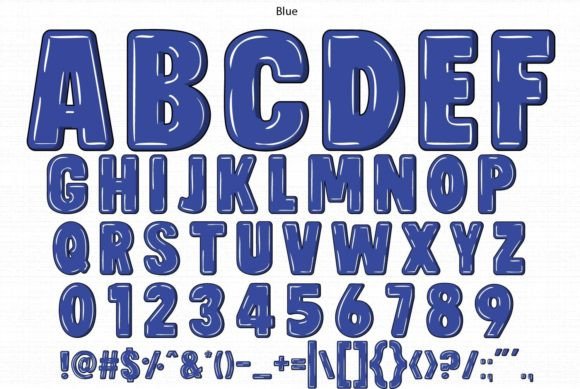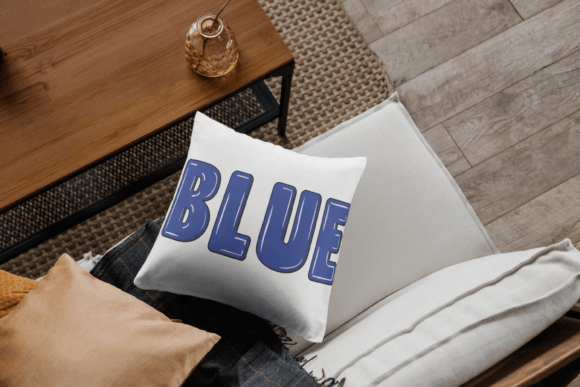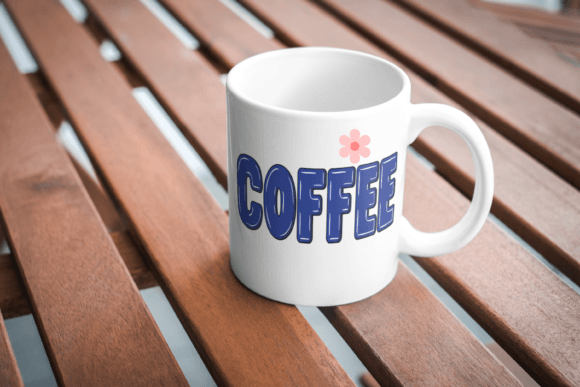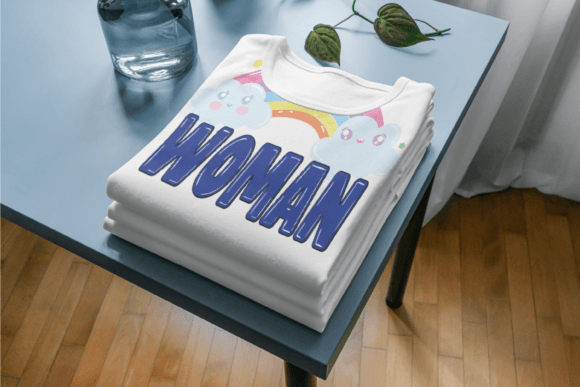
Introducing Blue Font: A Delightful Children’s Font for Creative Projects
Are you a designer, crafter, or parent looking for a fun and engaging font to use in your children’s projects? Look no further than Blue Font, also known as Blue Letters! This beautiful children’s font is designed with cute colors that are sure to capture the imagination of kids and adults alike. In this article, we’ll explore the features and benefits of Blue Font, and how you can use it to create amazing projects for kids.
What is Blue Font?
Blue Font, or Blue Letters, is a specially designed font for children’s projects. Its unique feature is the use of cute colors that make it perfect for kids’ handicrafts, activities, and other creative endeavors. The font is versatile and can be used on various materials, including paper, fabric, glass, and more.
Features of Blue Font
- Cute Colors: The font features a range of bright and cheerful colors that kids love.
- Versatile: Blue Font can be used on various materials, including paper, fabric, glass, and more.
- Easy to Use: The font is easy to read and use, making it perfect for kids’ projects.
- Fun and Engaging: The font’s playful design is sure to capture kids’ imagination and inspire creativity.
Uses of Blue Font
Blue Font is perfect for a wide range of children’s projects, including:
- Handicrafts: Use Blue Font to create fun and colorful handicrafts, such as cards, pictures, and collages.
- Activities: Use the font to create engaging activity sheets, such as coloring pages, puzzles, and games.
- T-Shirts and Apparel: Add Blue Font letters to t-shirts, hoodies, and other apparel for a fun and personalized touch.
- Glass and Ceramics: Use Blue Font to create personalized glass and ceramic items, such as mugs, water bottles, and plates.
- Bags and Accessories: Add Blue Font letters to bags, backpacks, and other accessories for a fun and colorful touch.
Benefits of Using Blue Font
Using Blue Font in your children’s projects offers several benefits, including:
- Increased Creativity: The font’s playful design inspires creativity and imagination in kids.
- Improved Engagement: The use of bright colors and fun design elements can help engage kids and make learning more enjoyable.
- Personalization: Blue Font allows you to create personalized projects that are unique and special.
- Ease of Use: The font is easy to read and use, making it perfect for kids’ projects.
| Font Name | Blue Font |
| Author | Kik Design |
Blue Font, or Blue Letters, is a beautiful children’s font that is perfect for kids’ projects. Its cute colors and versatile design make it ideal for handicrafts, activities, and other creative endeavors. With its ease of use and engaging design, Blue Font is sure to inspire creativity and imagination in kids. Whether you’re a designer, crafter, or parent, Blue Font is a great choice for your next children’s project.